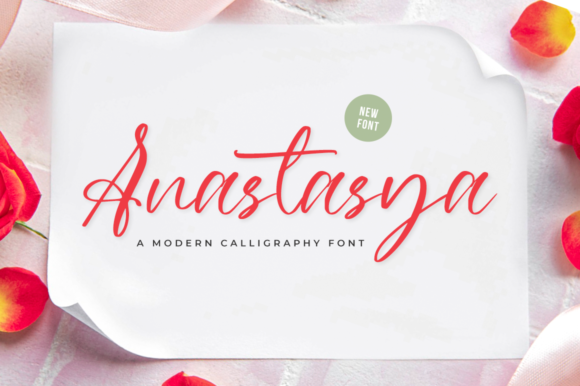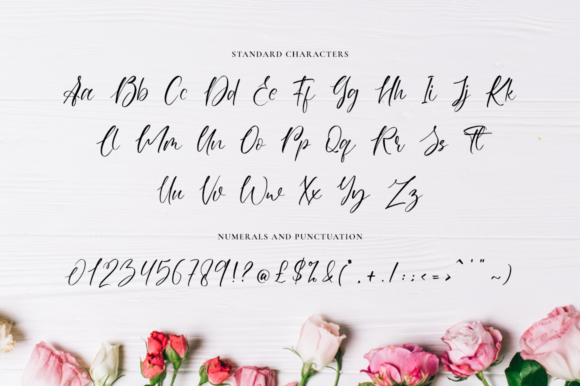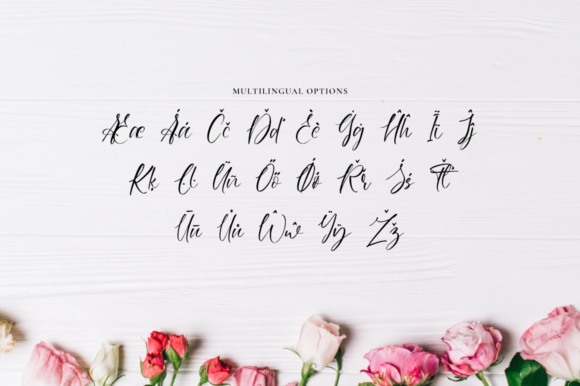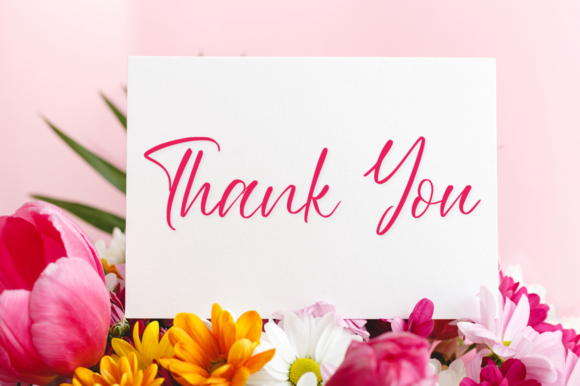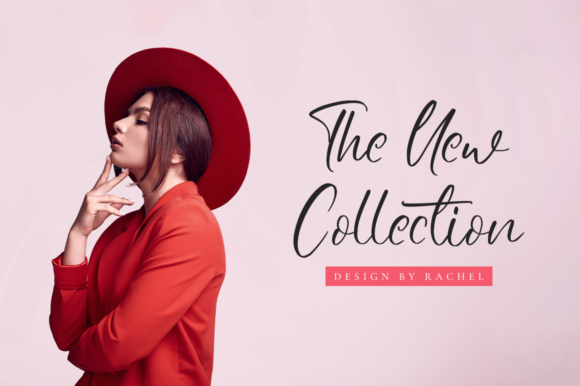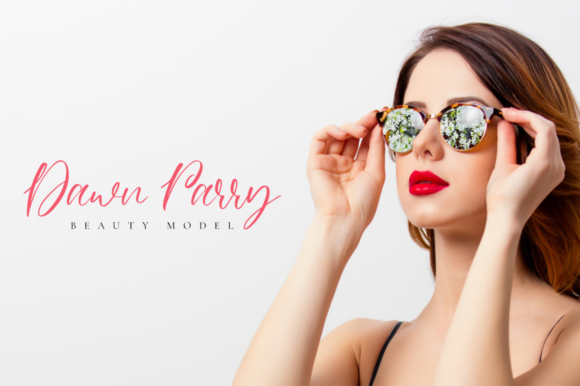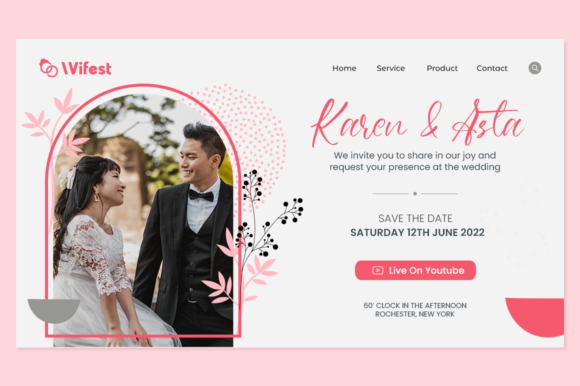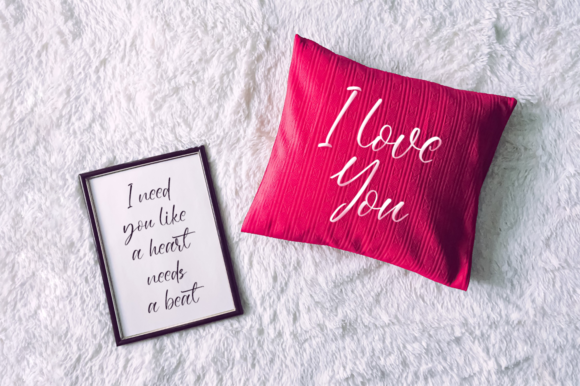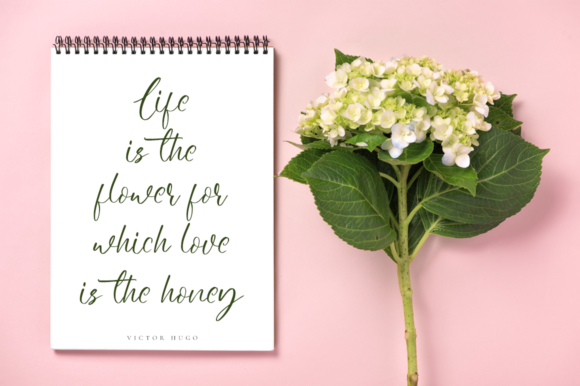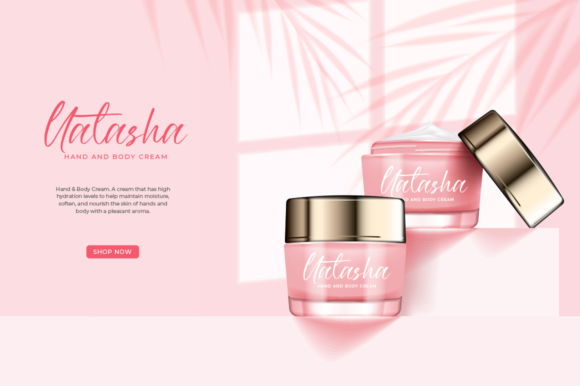
Anastasya Font
Anastasya is a romantic and sweet calligraphy typeface with characters that dance along the baseline. It will add a luxury spark to any design project that you wish to create!